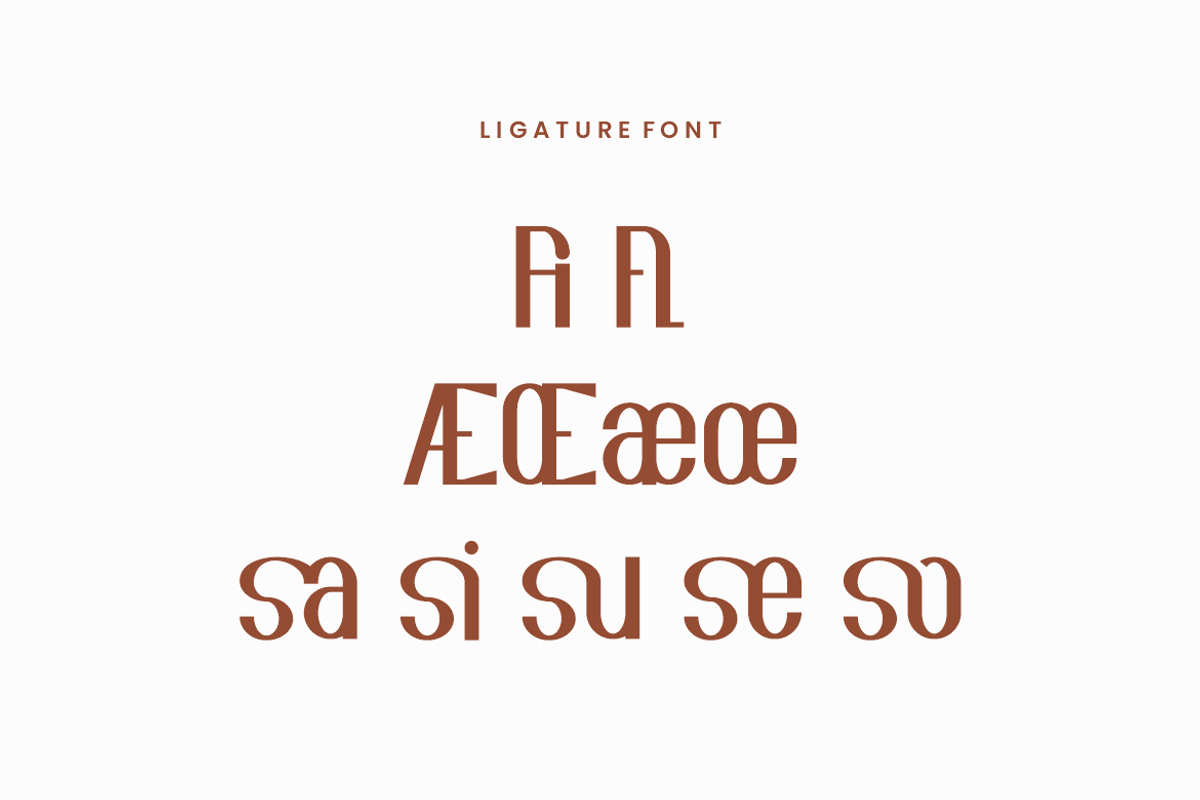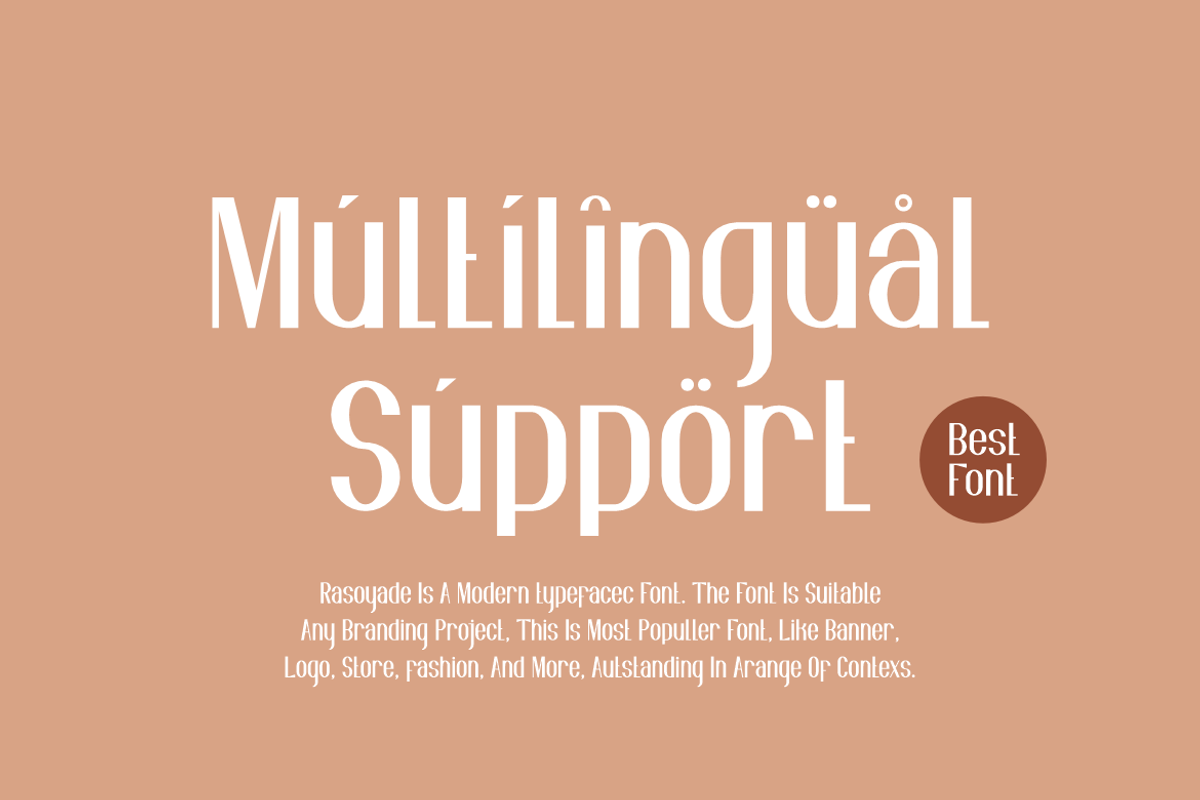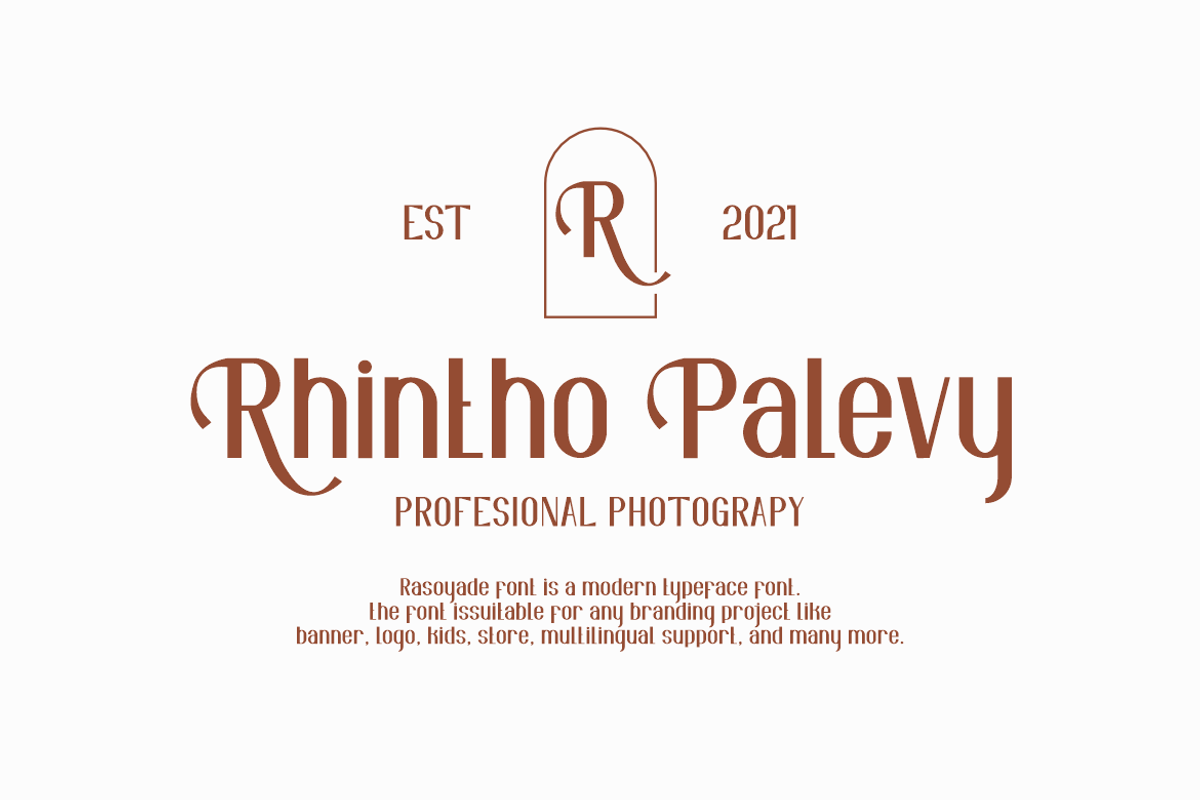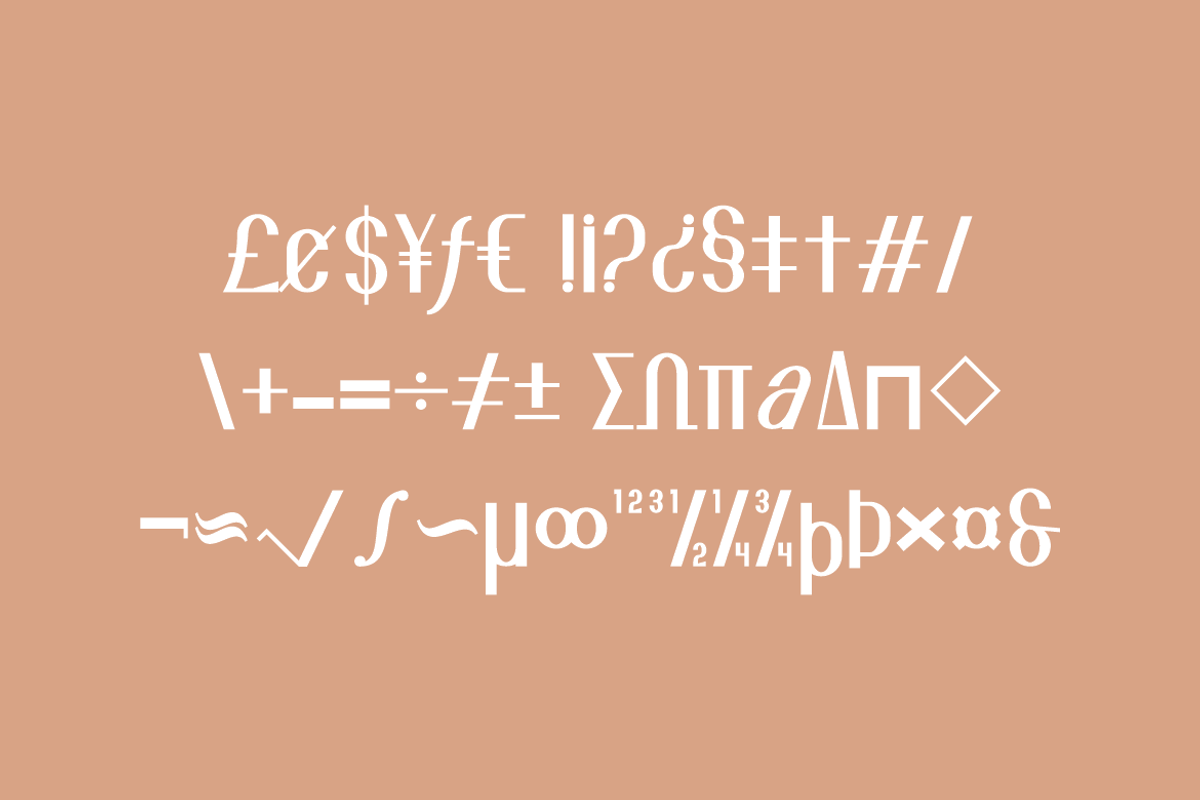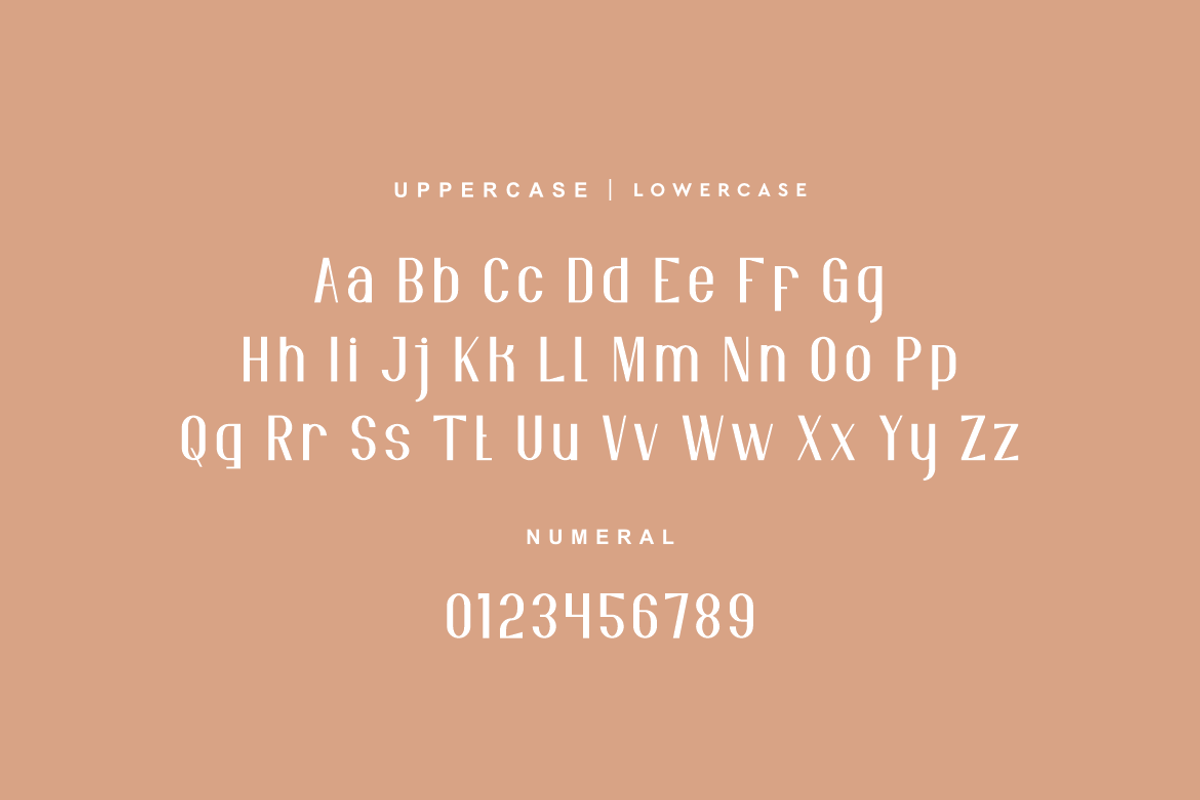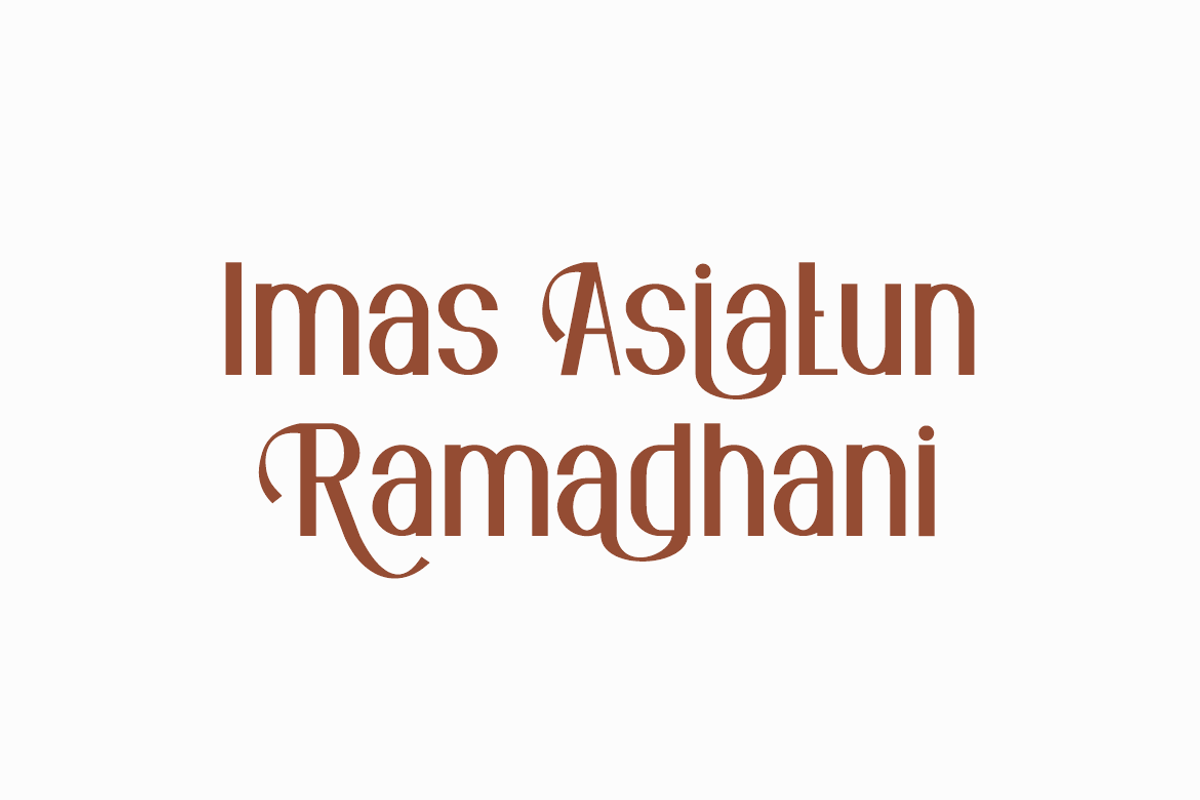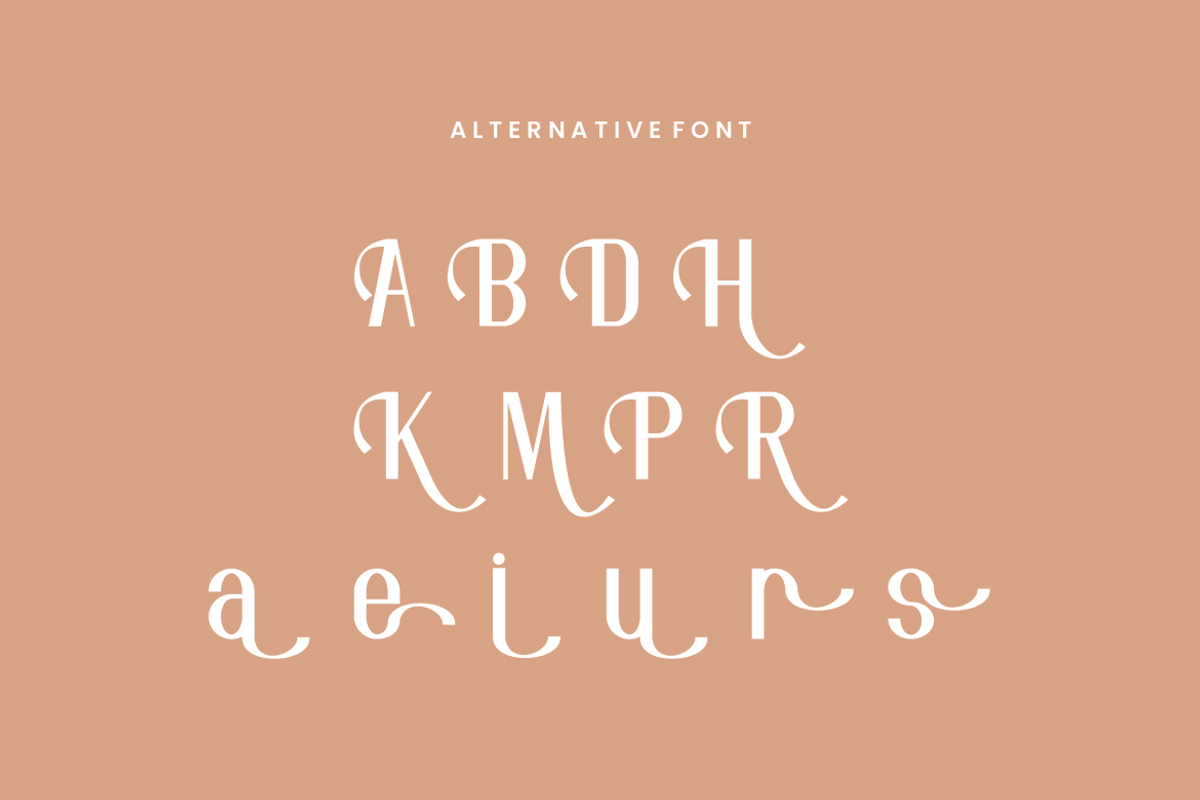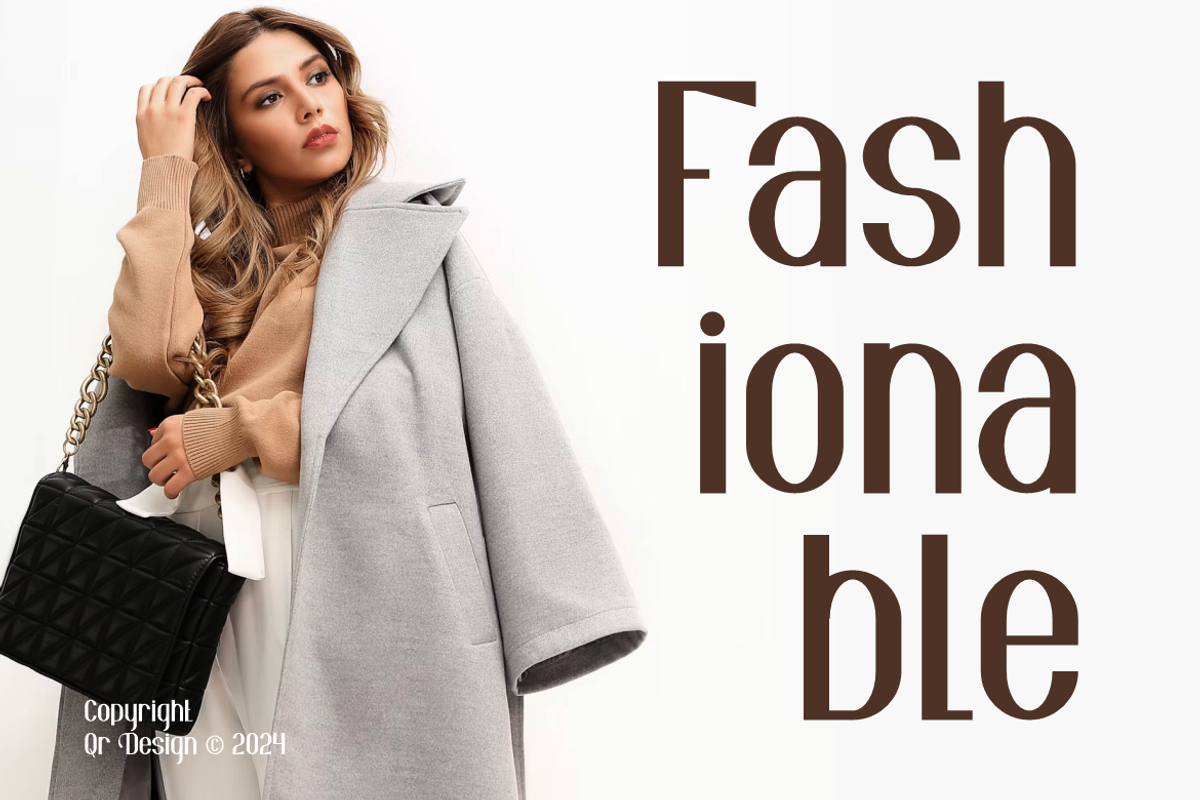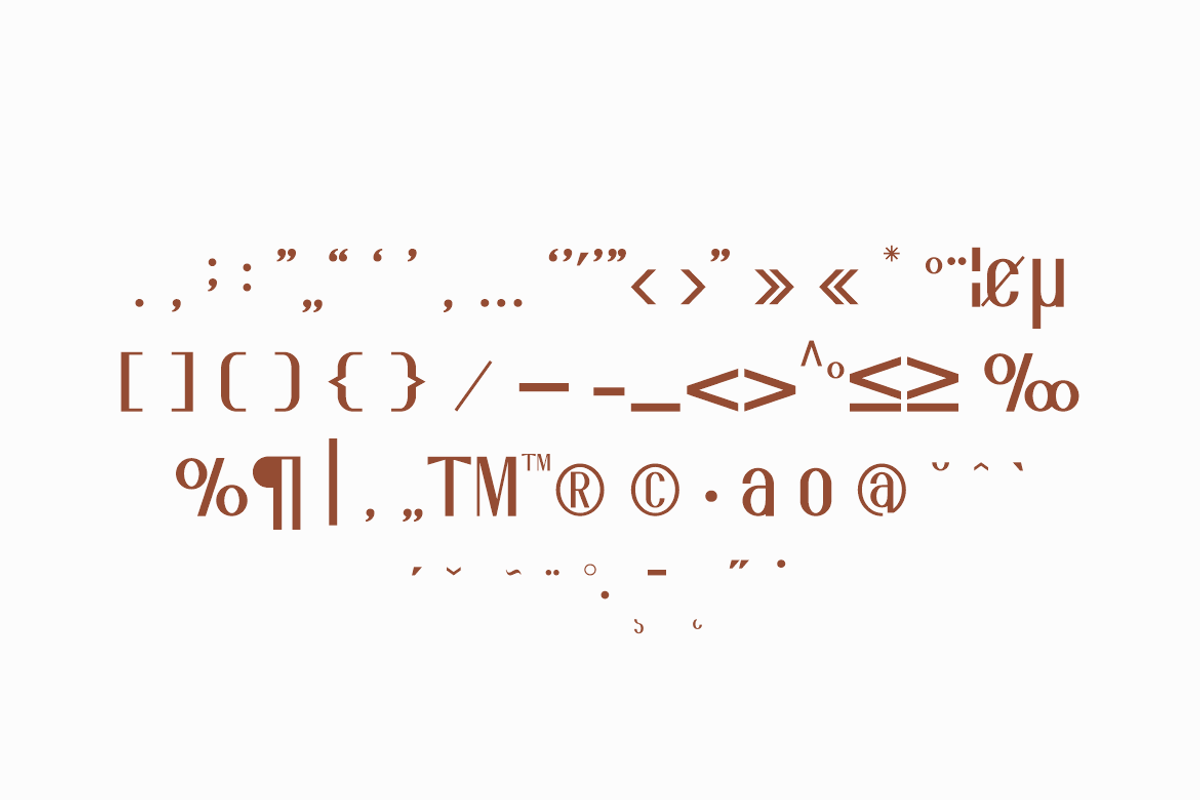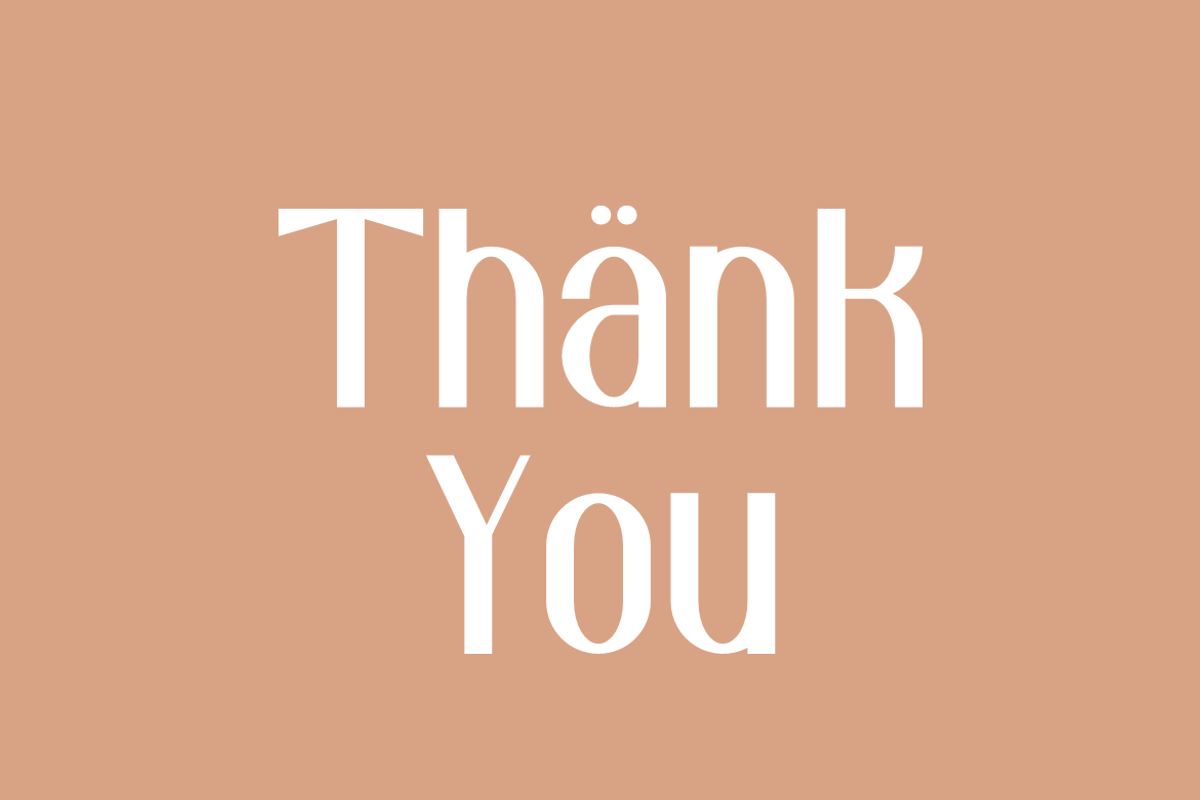
Rasoyade - Sans Serif Typeface Font
Rasoyade Font is a sans serif and authentic display font. The font is suitable for any branding project like poster, logo, sport, and many more. Outstanding in a wide range of contexts.
Main Features
- Ligatures & Alternate
- Numeral & Punctuations
- Extended Character Set